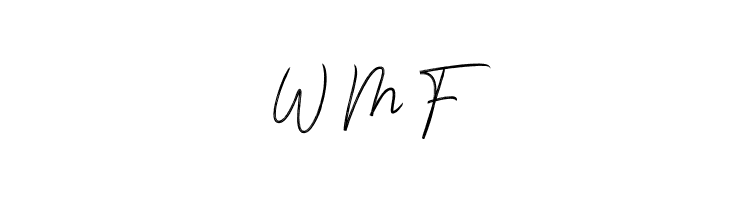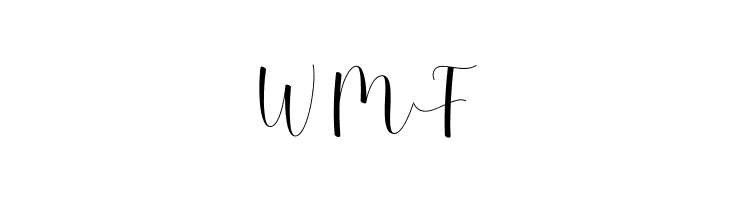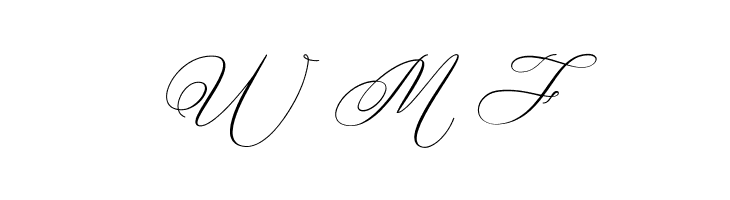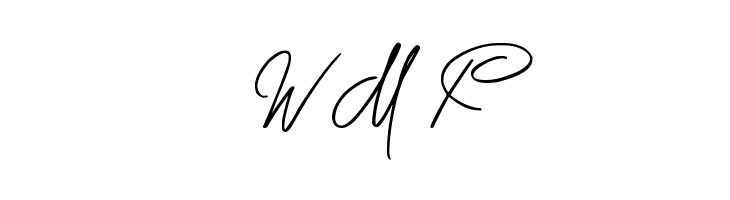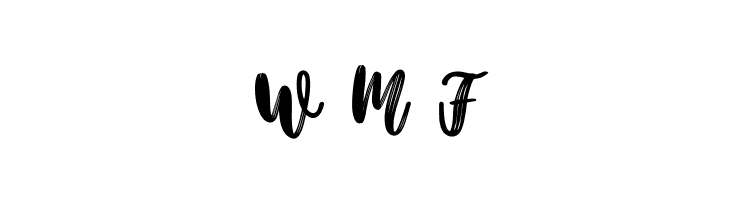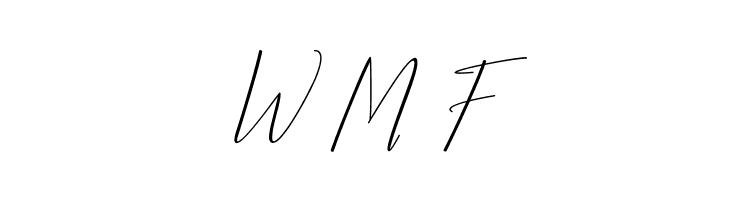
• Berty Script
A flowing, cursive script font with elegant, connected letters and dramatic flourishes.
• Bespoke GYH2oJovYg
A sleek, modern font with clean lines and a slightly condensed form.
• Bespoke njRfadf6wQ
A sleek, modern font with clean lines and slightly condensed letterforms.
• Bethanie Snake_PersonalUseOnly
A bold, brush-style script font with dynamic strokes and artistic flair.
• Bethany Script
An elegant, flowing script font with a sophisticated and graceful appearance.
• Bettany Script
A sophisticated, fluid script font with a handwritten style.
• Better Together Script
A bold, expressive script font with a hand-drawn, brush-like texture.
• Betterday Script [Demo]
An elegant and flowing script font with intricate loops and high contrast.
• BetterYouSmile-Script
A bold, playful handwritten script with smooth, flowing characters.
• BettyLaudiaScript
An elegant script font with fluid, cursive strokes and intricate loops.